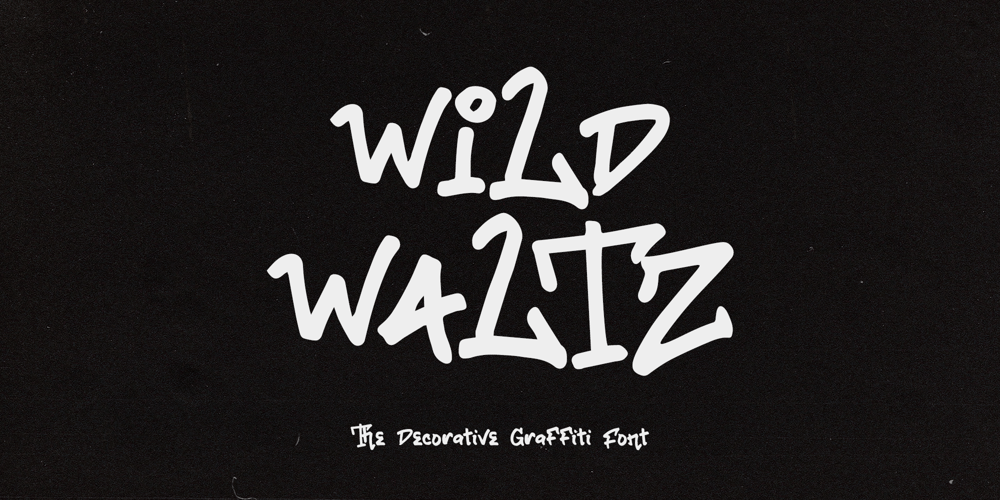
Wild Waltz
Wild Waltz font
Wild Waltz Font Family was designed by Dede Kurniawan and published by Creatifont Studio. Wild Waltz contains 1 styles and family package options. Wild Waltz – A graffiti-inspired display font that’s bold, playful, and perfect for urban-themed designs. Its dynamic letterforms and handwritten style capture the energy and creativity of street art.A SUMMARY OF WHAT’S INCLUDED:- Standard Character A-Z, a-z, 0-9, Punctuation & symbols- Regular font style with various alternates and ligatures- Works on PC & Mac- Simple installation- Accessible in Adobe Creative Suite (Ai, Ps, Id, etc.) even work on Microsoft Word.- PUA Encoded Characters – Fully accessible without additional design software.————————————————-🌟If you come across any issues or notice anything we might have overlooked while using this product, please feel free to reach out to us. We greatly value your feedback as it helps us enhance and refine our products. Thank you!